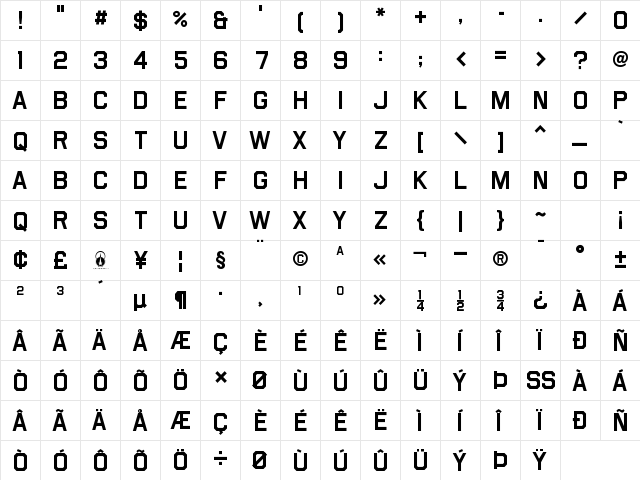
Airborne Regular
| Designer | Charles Casimiro 2008 |
Design Context for Airborne Typeface
Airborne offers clean, dependable letterforms without strong stylistic allegiance, making it a practical choice for designers who need flexibility.